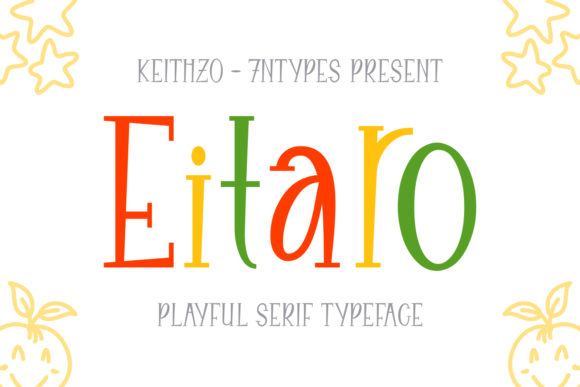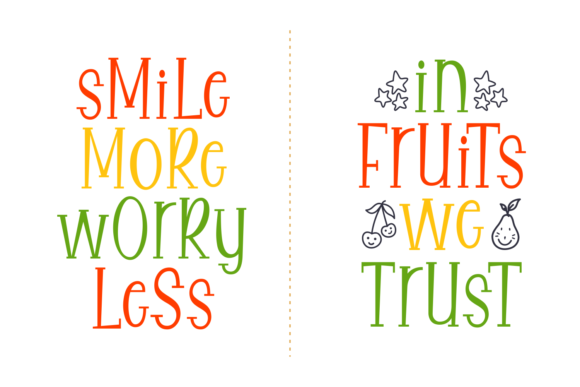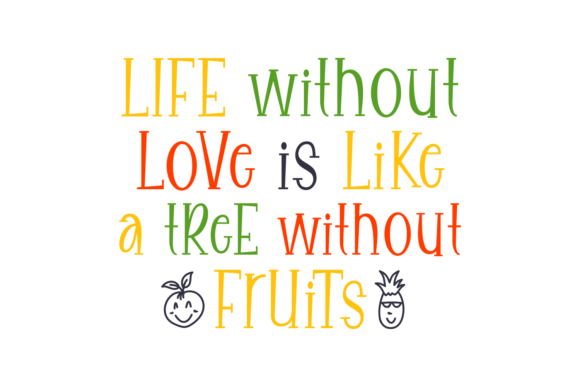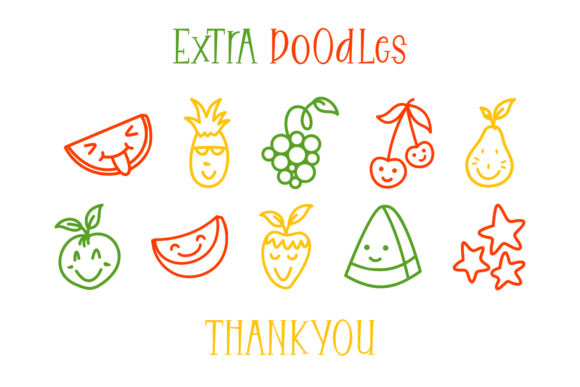
Eitaro Font: A Cute Serif & Doodle Font for Playful DIY Designs
About the Eitaro Font
Introducing the Eitaro Font, a beautifully crafted typeface designed to elevate your creative projects. The Eitaro is a playful serif font. Its characters have a fun feel and a perfect readability. Also included are fun, food related, doodles to give your design that extra touch.
Eitaro thrives in display contexts such as headlines, logos, short taglines, and packaging where its playful serifs and accompanying doodles add a touch of whimsical charm. It’s ideal for brands targeting a younger demographic or those with a fun, approachable personality. Avoid using Eitaro for extended body text or UI elements; its playful nature can hinder readability in large blocks of text.
Pair Eitaro with a clean sans-serif like Open Sans for a balanced contrast, or a more geometric sans-serif like Montserrat for a modern feel. For a slightly more sophisticated look, consider pairing it with a delicate script font for added visual interest, but keep the script usage minimal to avoid overpowering Eitaro’s playful personality.
The overall personality of Eitaro is undeniably cheerful and friendly. Its design is best suited for projects needing a lighthearted and approachable aesthetic, conveying themes of fun, food, or a generally positive brand message.